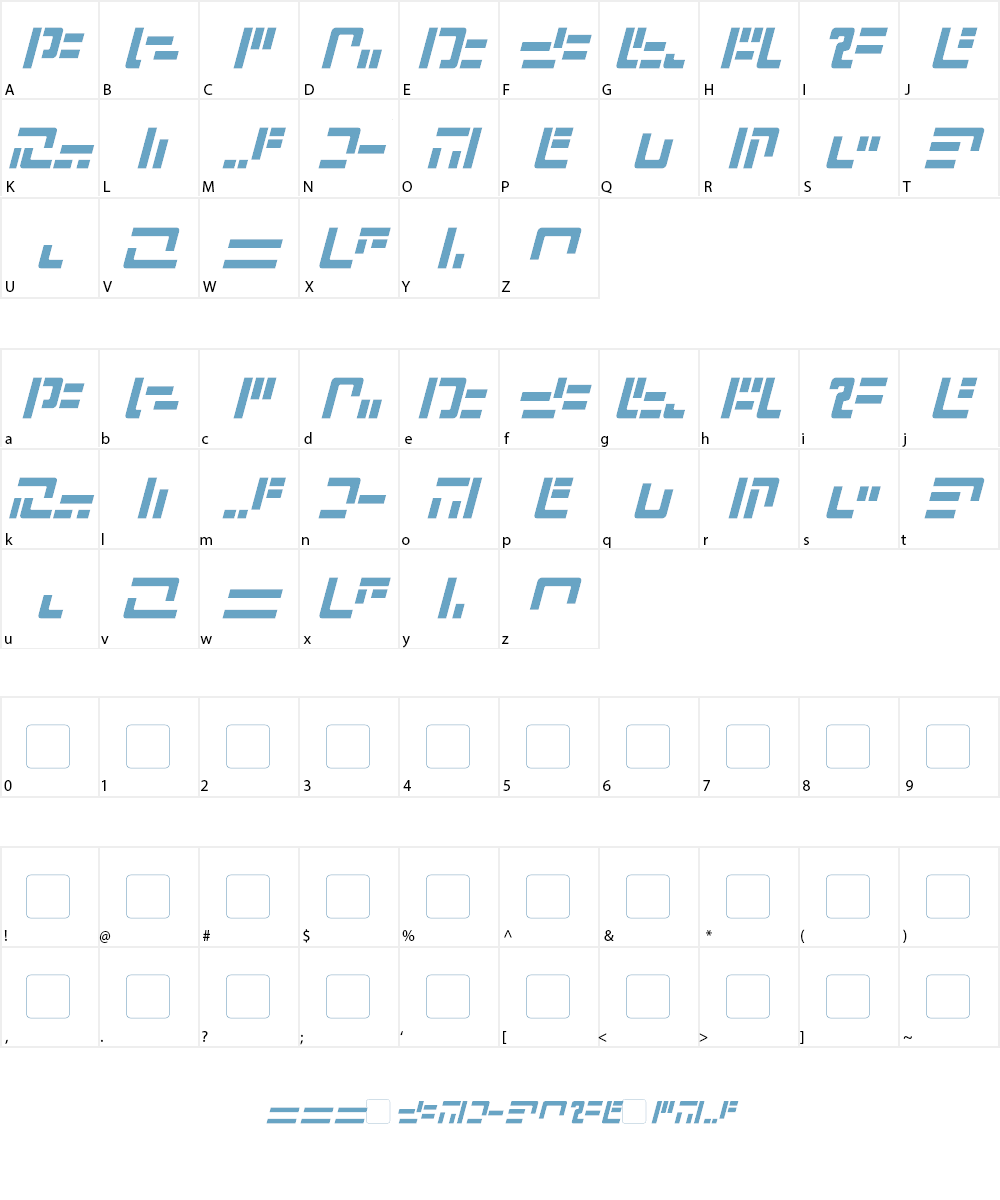
Modern Iaconic is a ”tech manual” style, display-friendly version of the ancient Transformers script found in the Transformers: Legacy history and legends guide. Includes all canon characters. Includes regular and italic weights.